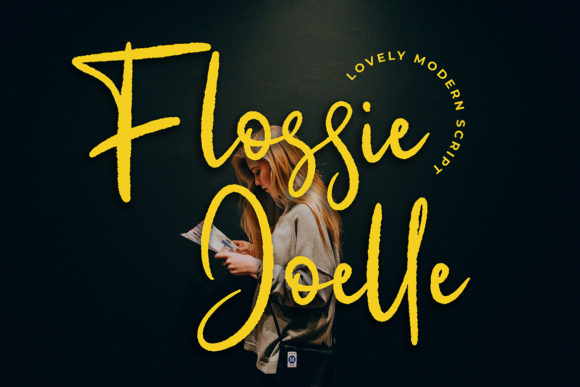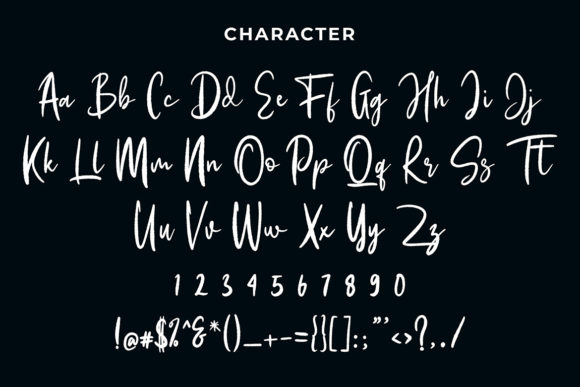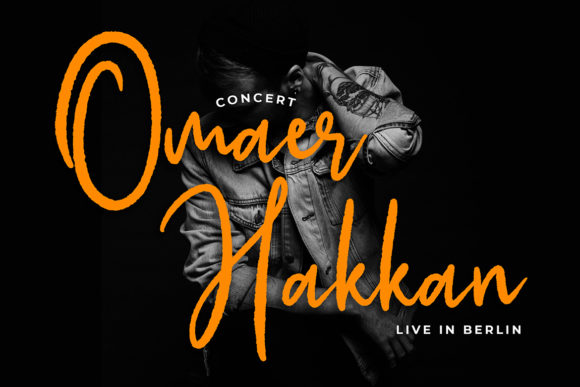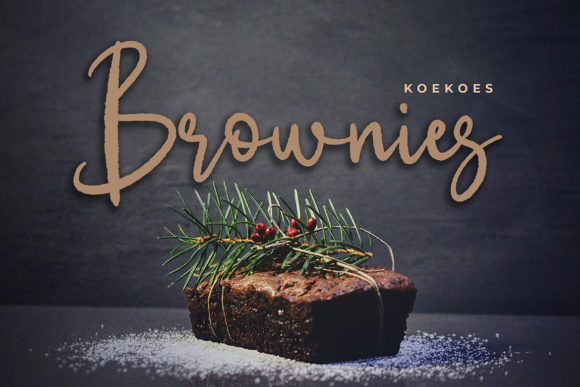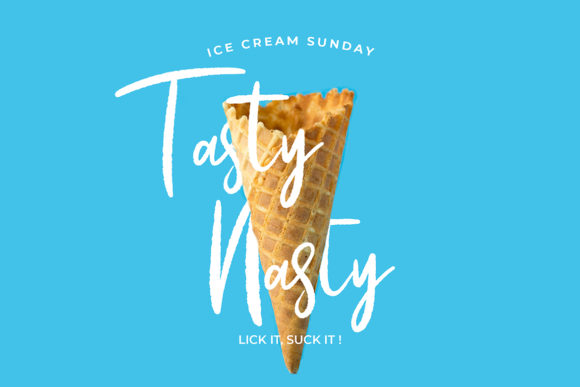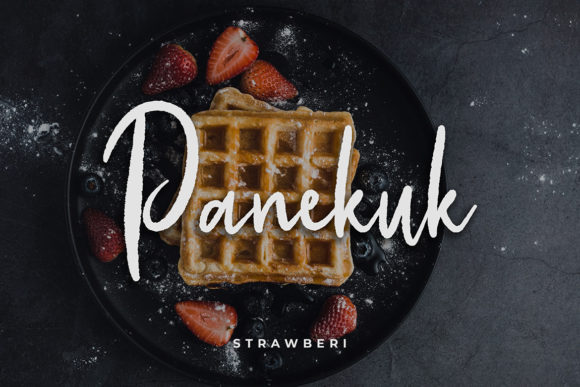
Flossie Joelle Font
About Flossie Joelle Font
Flossie Joelle is a modern script font that feels equally fancy and authentic. Get inspired by its unique charm!